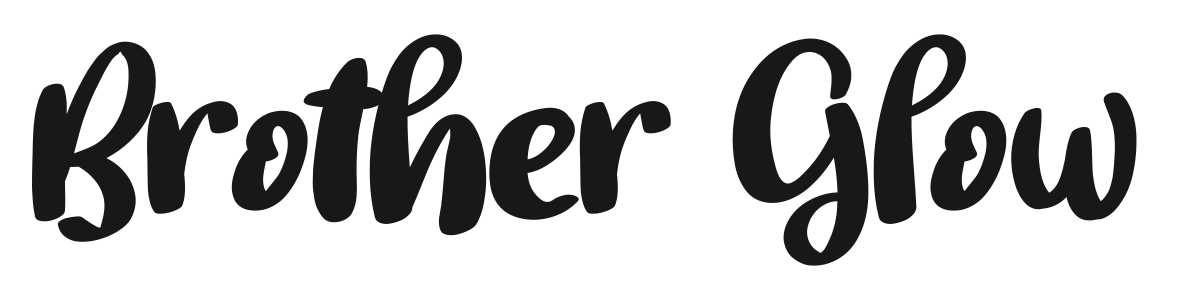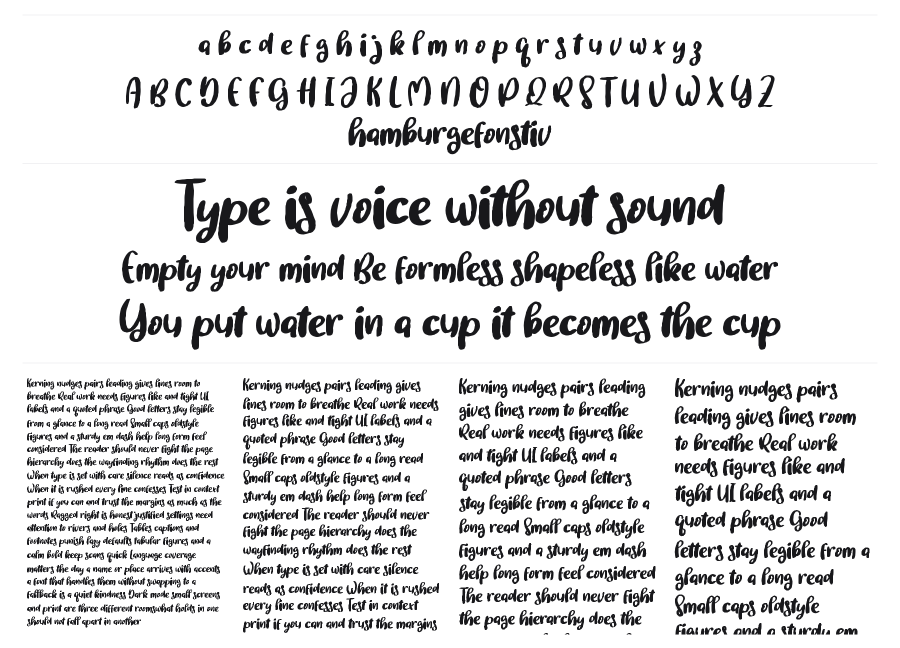
Brother Glow
Brother Glow is a bold brush script with rounded, connected characters and the confident energy of hand lettering. The thick strokes and slight baseline bounce give it a warm, casual personality that reads well at headline sizes. It fits naturally in branding and packaging work where a human, approachable touch is needed.